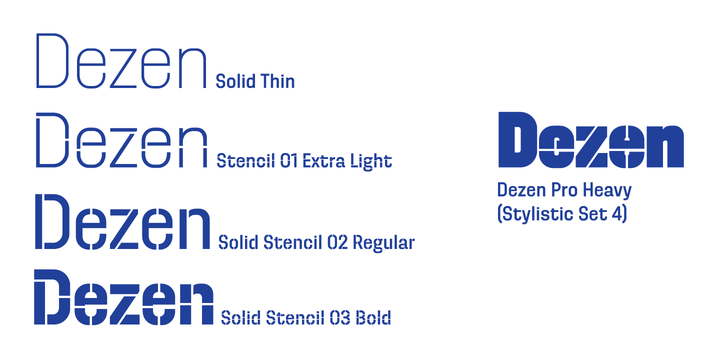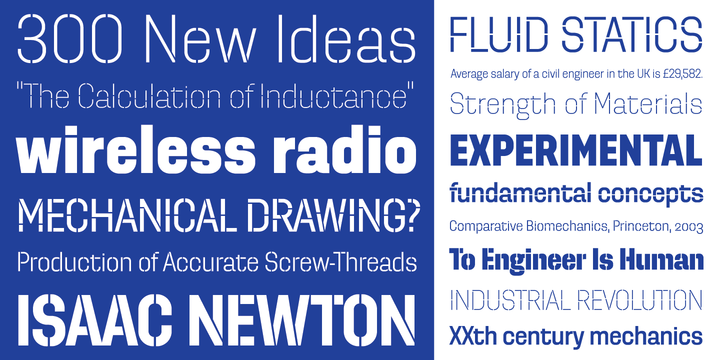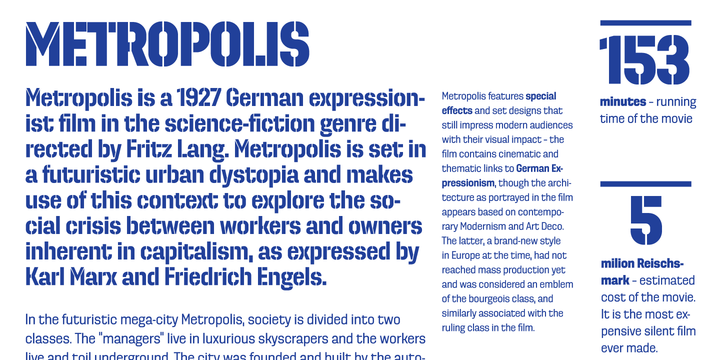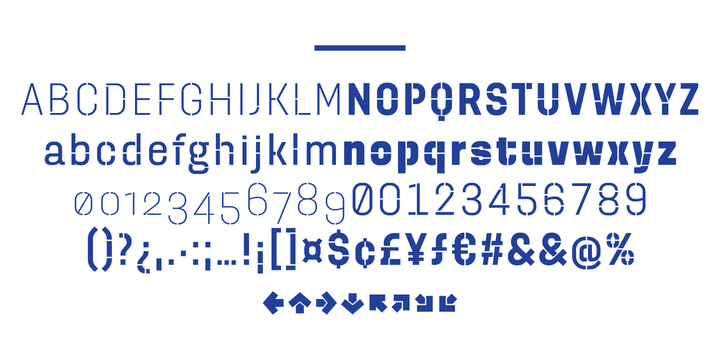
Dezen Stencil 02 Font Family
Dezen is a contemporary, mechanical grotesque typeface. Its letters were first constructed from individual modules and then optically refined to enhance its rhythm.
Its tight letter spacing and narrow proportions make the typeface particularly well suited for display sizes and headlines. โจWhen you add spacing, font can be used for shorter amount of text, โจbigger than 12 points.
The Dezen type family consists of a wide variety of styles โ solid and stencil. The Dezen Pro subfamily combines all 4 styles (Solid, Stencil 01, โจStencil 02, Stencil 03) in a specific sequence, which originates a โpatternโ for the alphabet (or dezen, in Slovak).